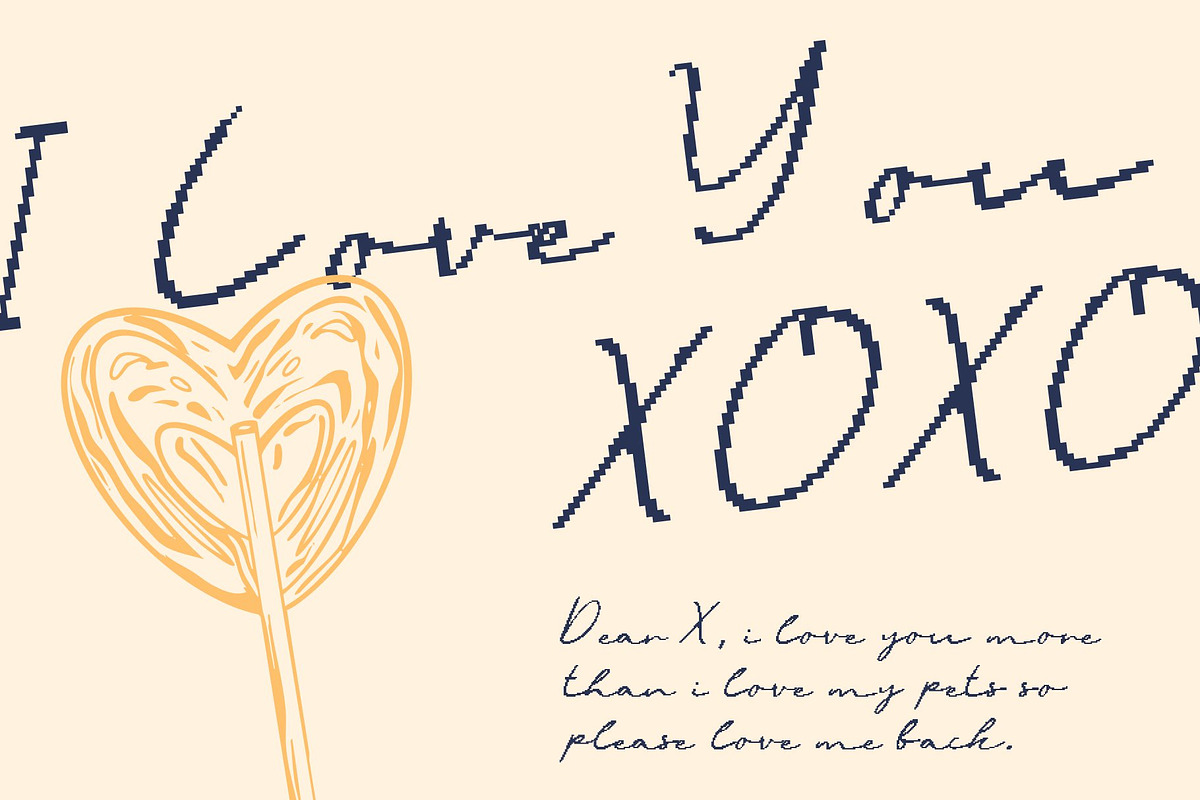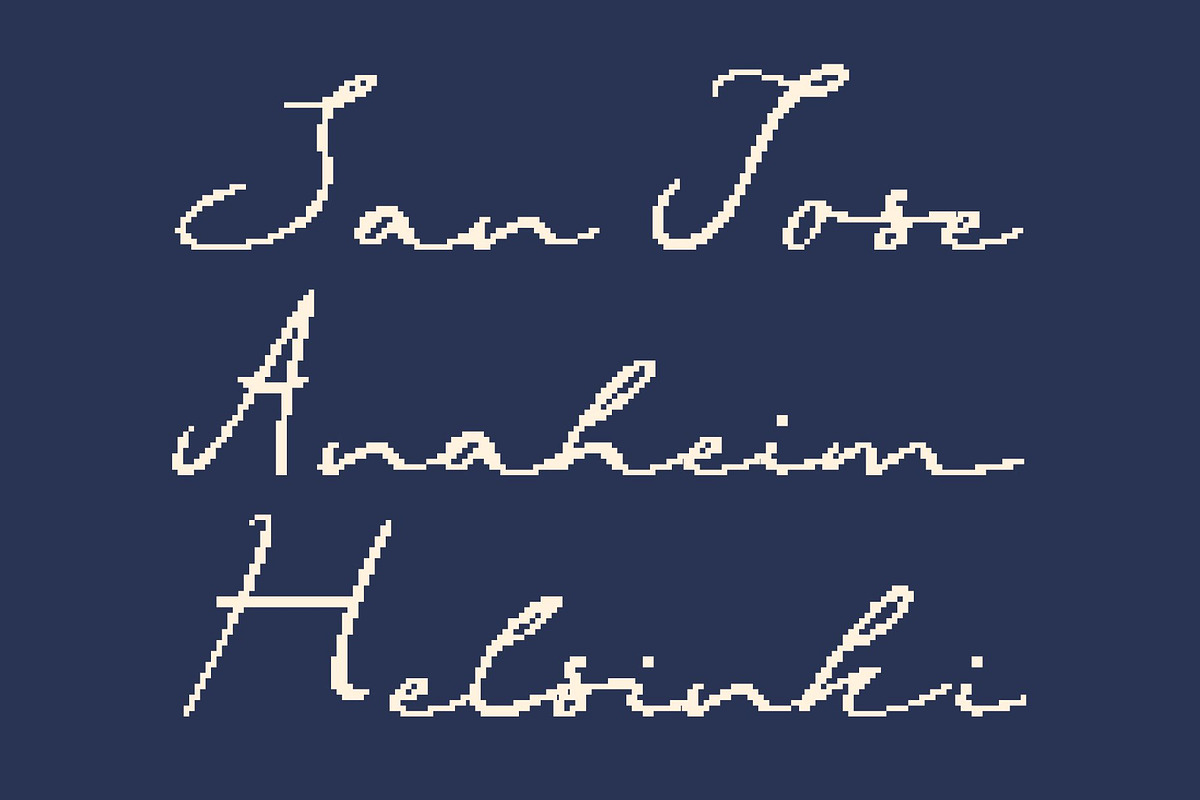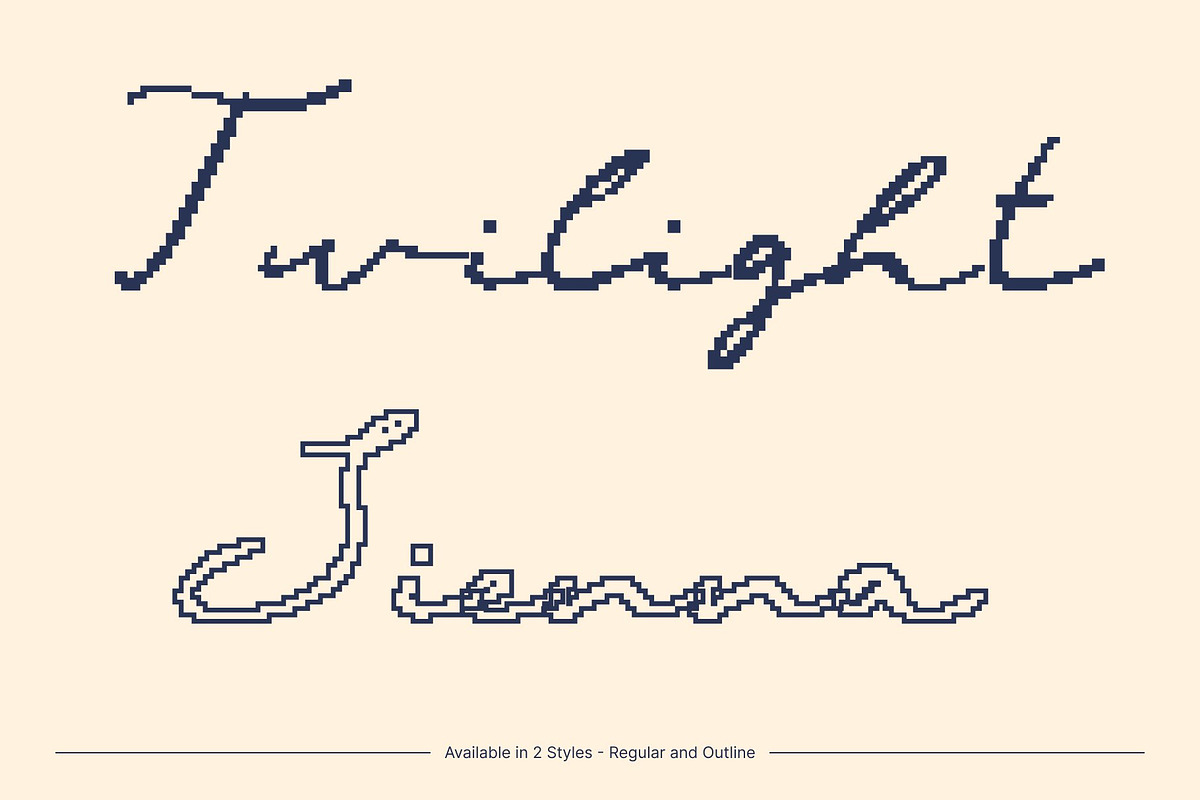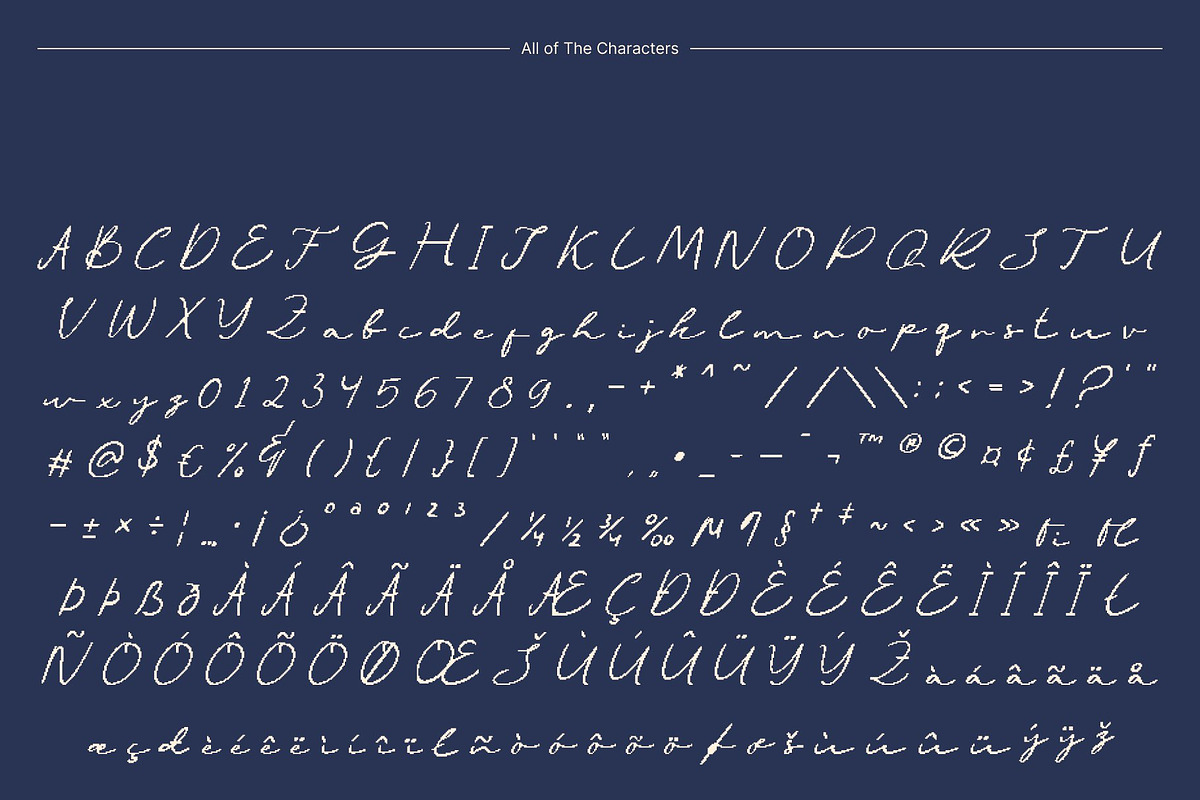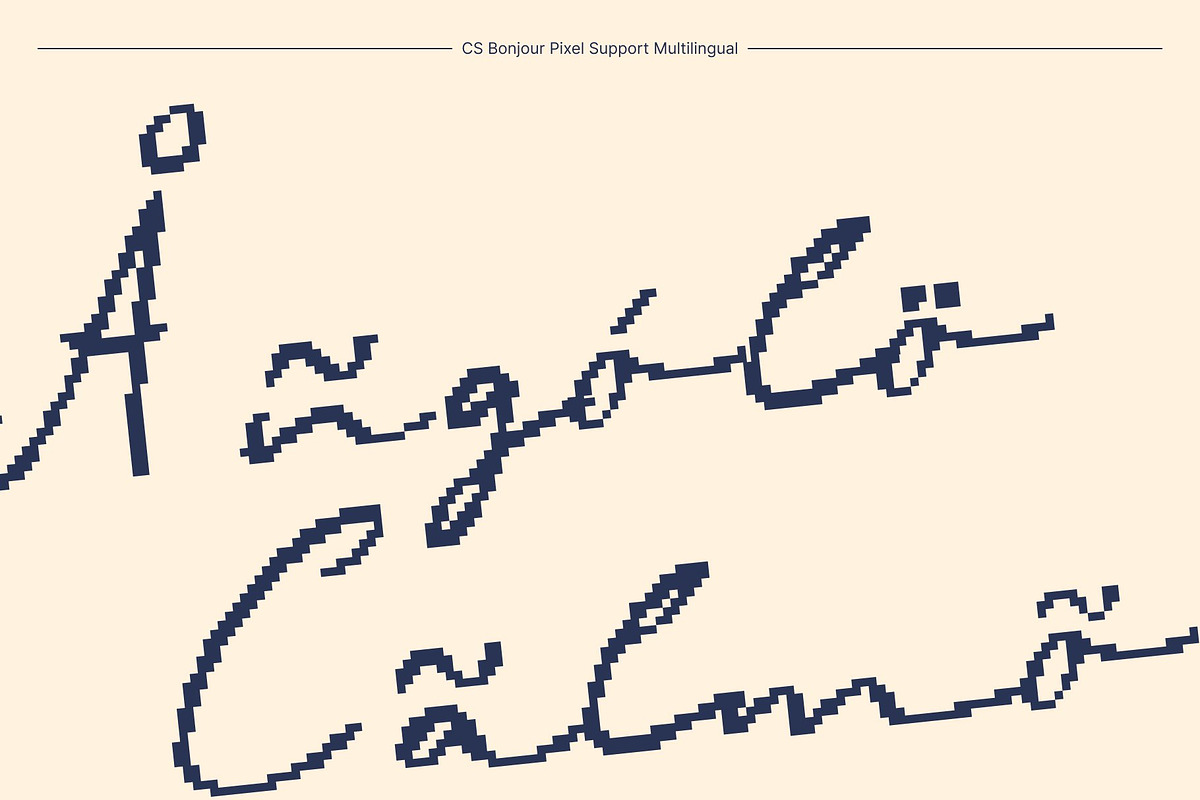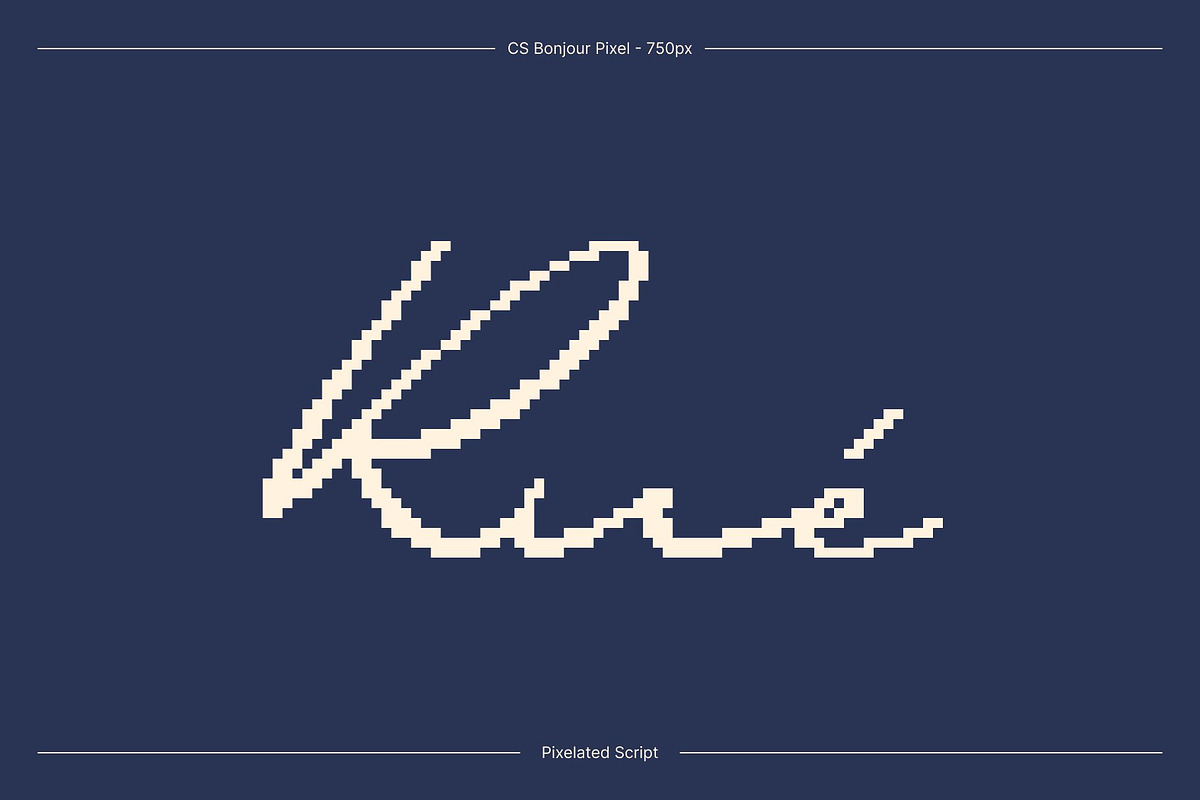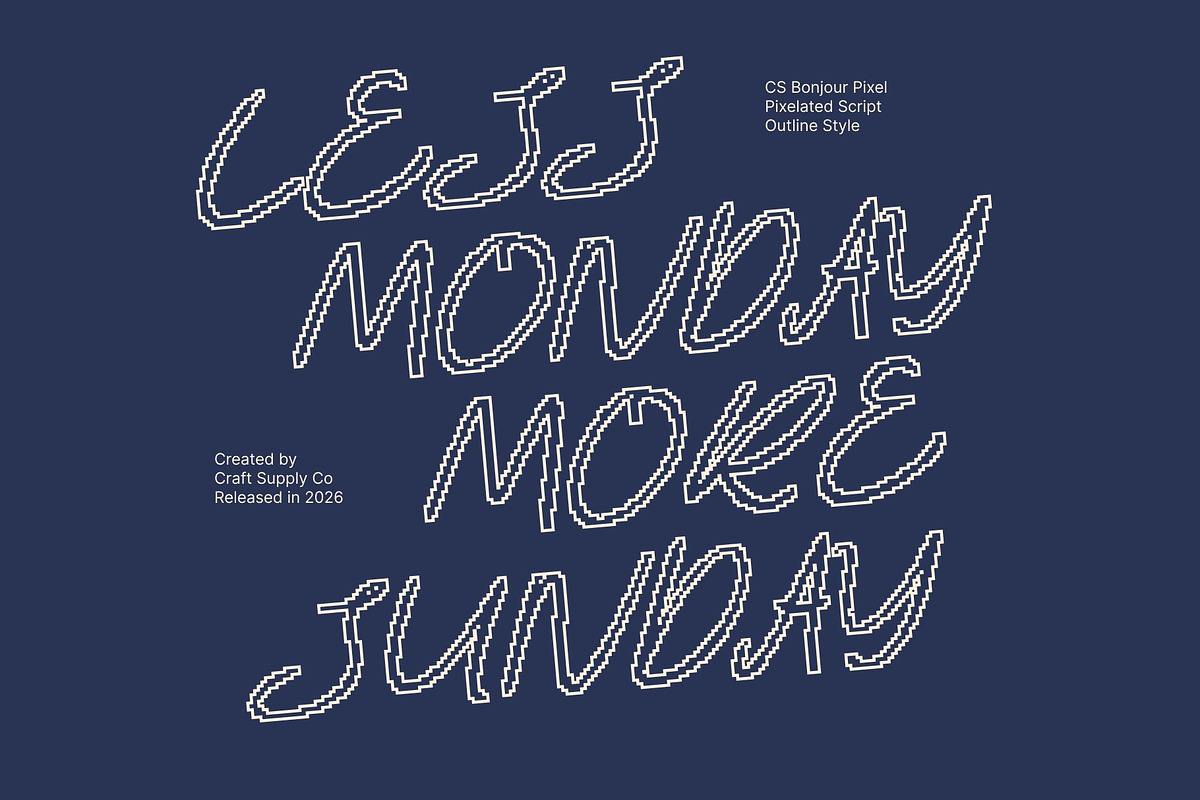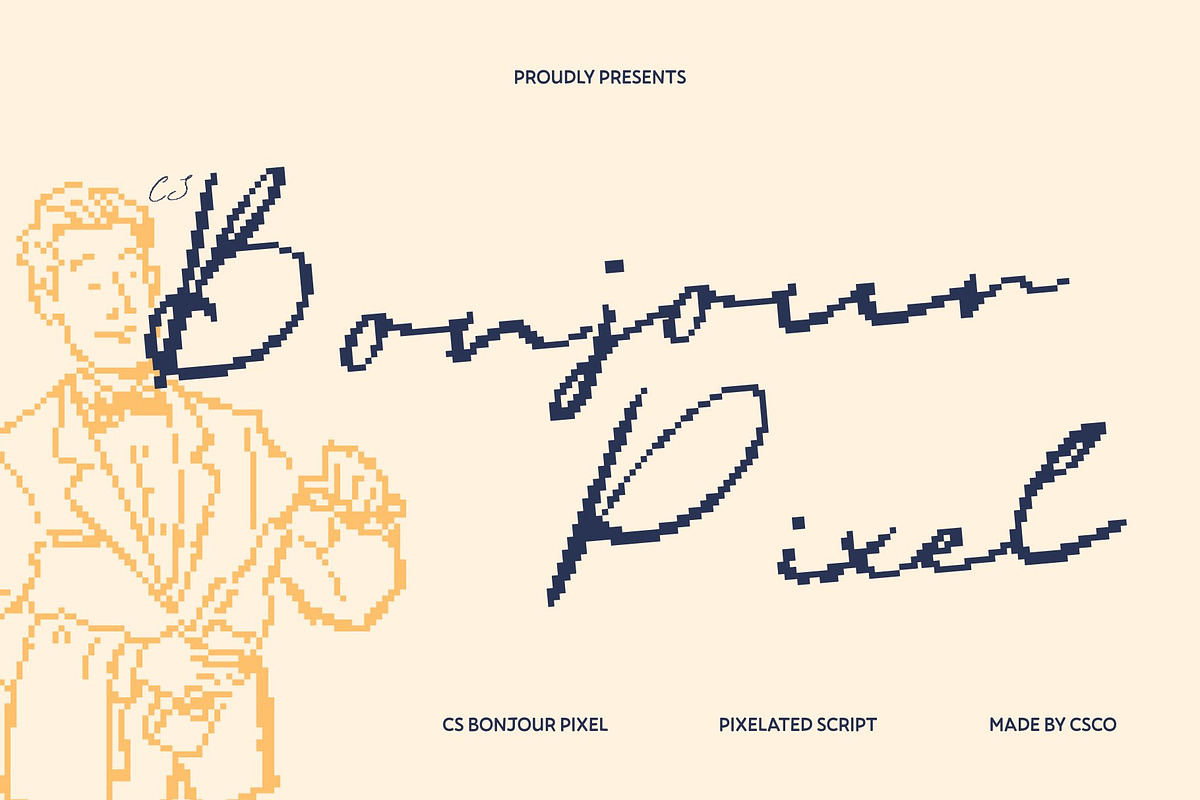
CS Bonjour Pixel
CS Bonjour Pixel – Elegant Signature Script with Personal Luxury Appeal
Refined Signature Style with Pixel Authenticity This is a personal signature script font that captures the fluid elegance of real handwritten signatures, reimagined through a pixel-inspired aesthetic. Its smooth, confident strokes are translated into a digital grid style, creating a unique blend of handcrafted sophistication and retro technology charm. This combination gives the font an intimate yet professional presence, perfect for designs that seek authenticity with a digital twist.
Graceful Pixel Lines with Luxurious Handwritten Feel Crafted with delicate curves and expressive pen-like motion, maintains the grace of luxury handwriting while embracing a pixel structure. The subtle pixel detailing adds character and nostalgia, evoking early digital displays and classic computer graphics. This fusion results in a signature font that feels timeless, stylish, and eye-catching on screens.
Perfect for Logos and Premium Digital Branding This font excels in branding projects that require personal identity and refined presentation. Its pixel signature style enhances logos, brand marks, and taglines with individuality and prestige, making it ideal for fashion labels, beauty brands, boutique businesses, and digital-first creatives who want a luxurious yet tech-inspired look.
Ideal for Digital Invitations and Retro-Tech Designs From digital wedding invitations to stylish event graphics and old-technology-themed visuals, brings warmth and elegance with a nostalgic digital flair. Its signature charm and pixel beauty create memorable designs that feel personal, artistic, and perfectly suited for modern screens or retro-inspired projects.
- CS Bonjour Pixel Regular
- CS Bonjour Pixel Outline